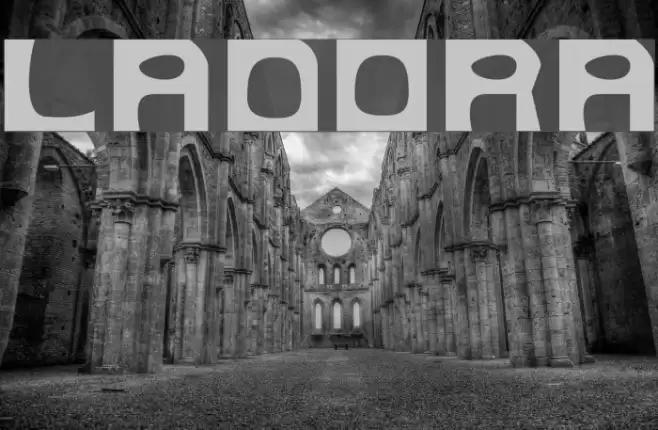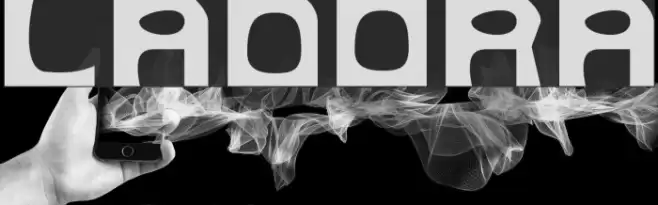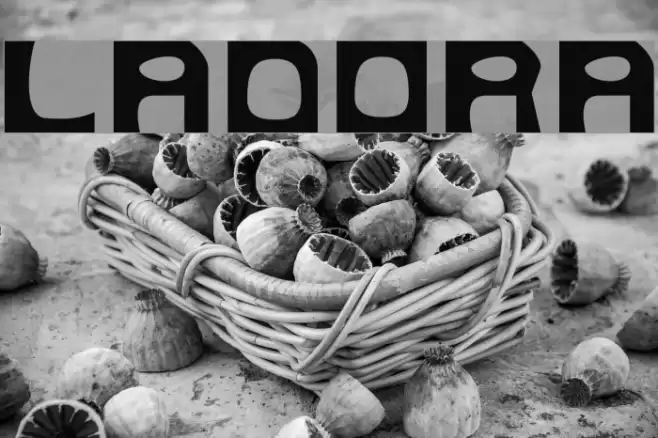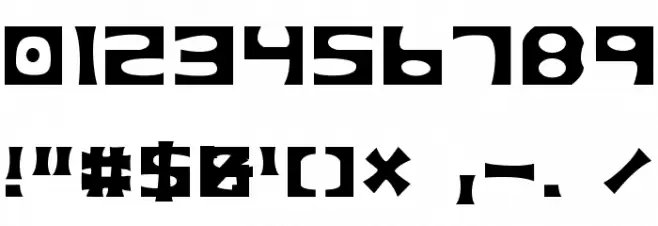
Ladora Font
Ladora Description
This font features a bold, geometric style with a modern and futuristic aesthetic. The characters are constructed with thick, block-like forms that give a sense of strength and stability. The uppercase letters are particularly striking, with unique shapes that make them stand out. The lowercase letters maintain the same boldness, ensuring consistency across the typeface. Numbers and special characters are designed to match the overall style, providing a cohesive look. This font is ideal for projects that require a strong visual impact, such as branding, headlines, and posters.
A bold, geometric font with a modern, futuristic aesthetic from Computer fonts.
- Proposed Projects: Ideal for branding, headlines, posters, and any project requiring a strong visual impact.